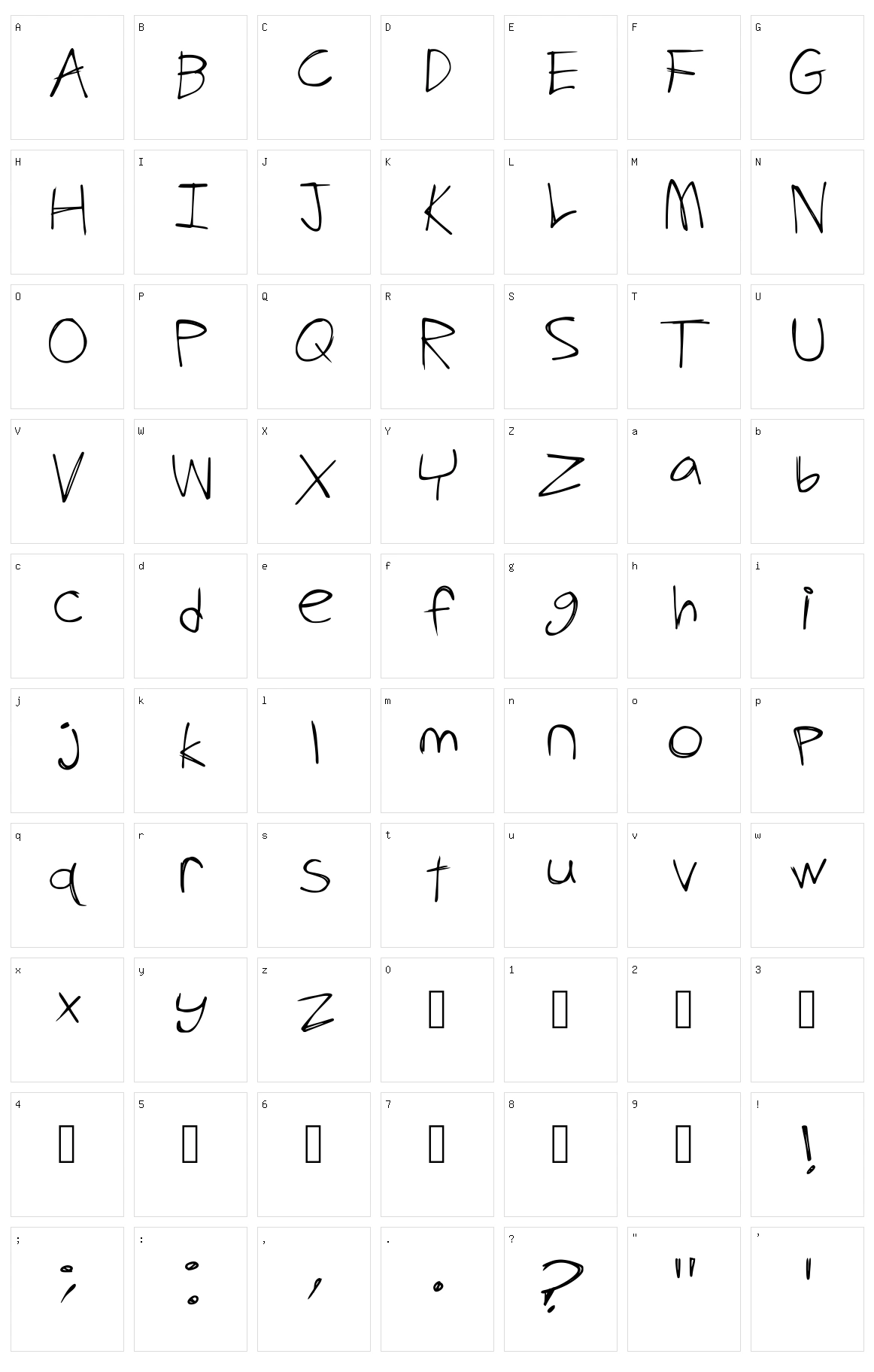
The free font Peppersn Creamsteaks is carefully designed by Ik Zucc, showcasing a thoughtful balance of creativity and usability and falls under the Trash font style. When you download the ZIP file, it contains only 12.05 KB of font files, making it lightweight and quick to download. Please review the license details below to understand permitted usage and distribution rights. If license information is not available, we recommend using this font for personal projects only or contacting the author directly for commercial usage permissions.